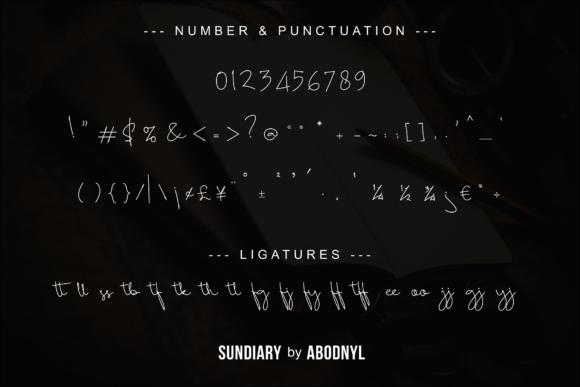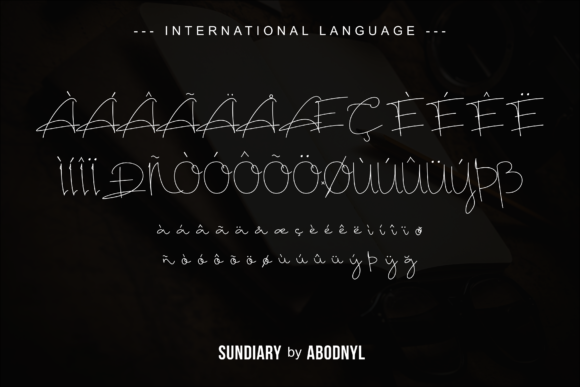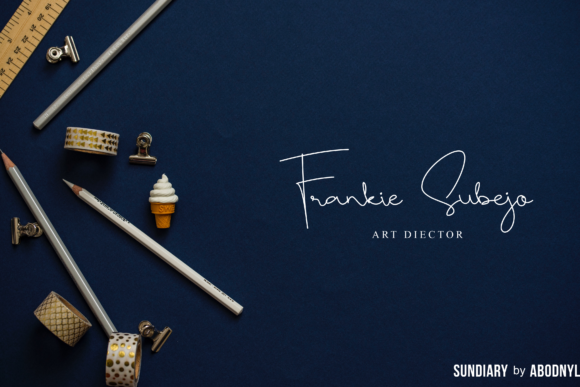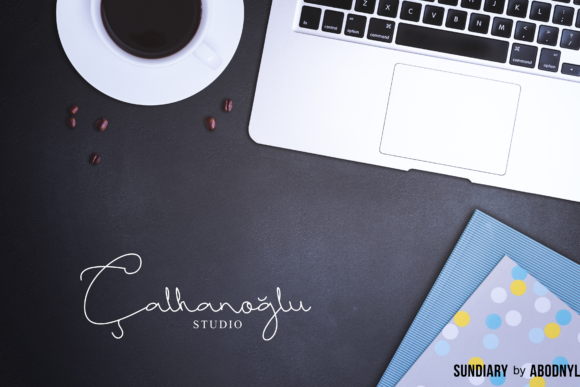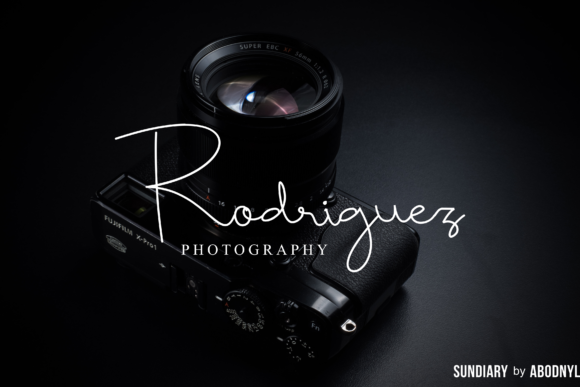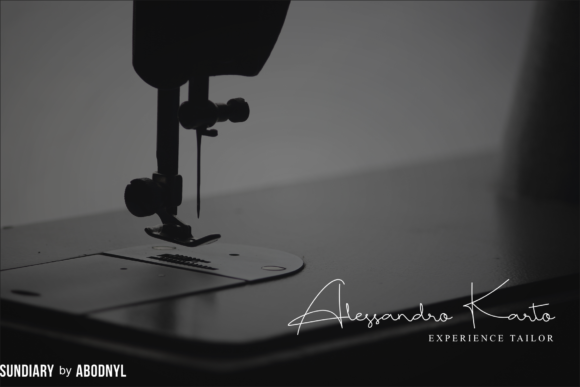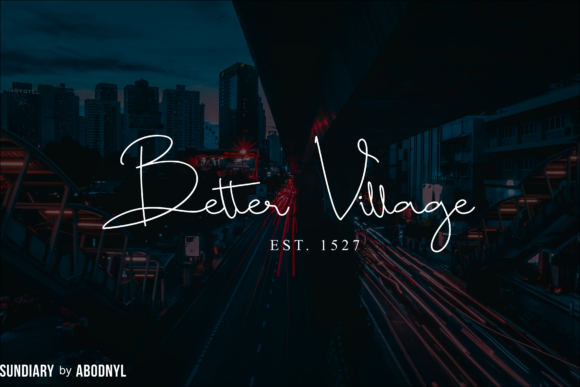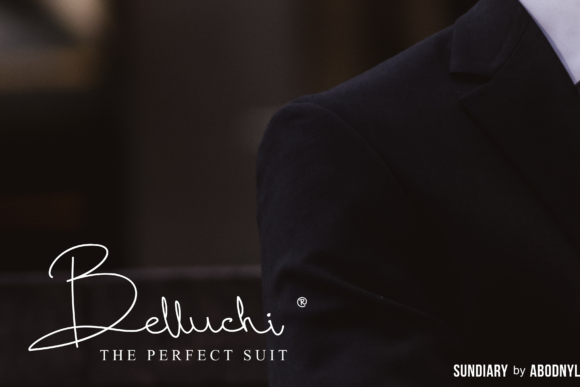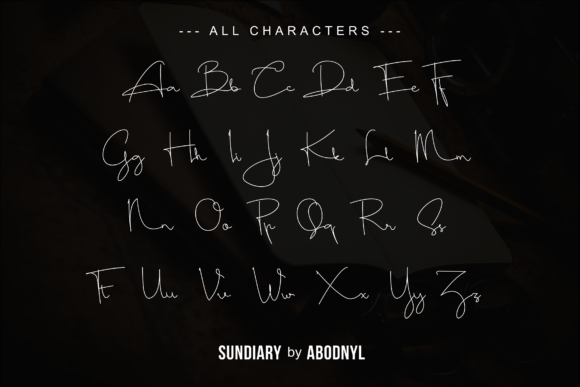
Sundiary Font
About Sundiary Font
The Sundiary is a fabulous script font. It has an elegant signature style which makes it perfect for adding an upscale and chic look to your designs.
It can be used for branding, photography, invitations, watermarks, advertisements, product designs, labels, product packaging, and much more!